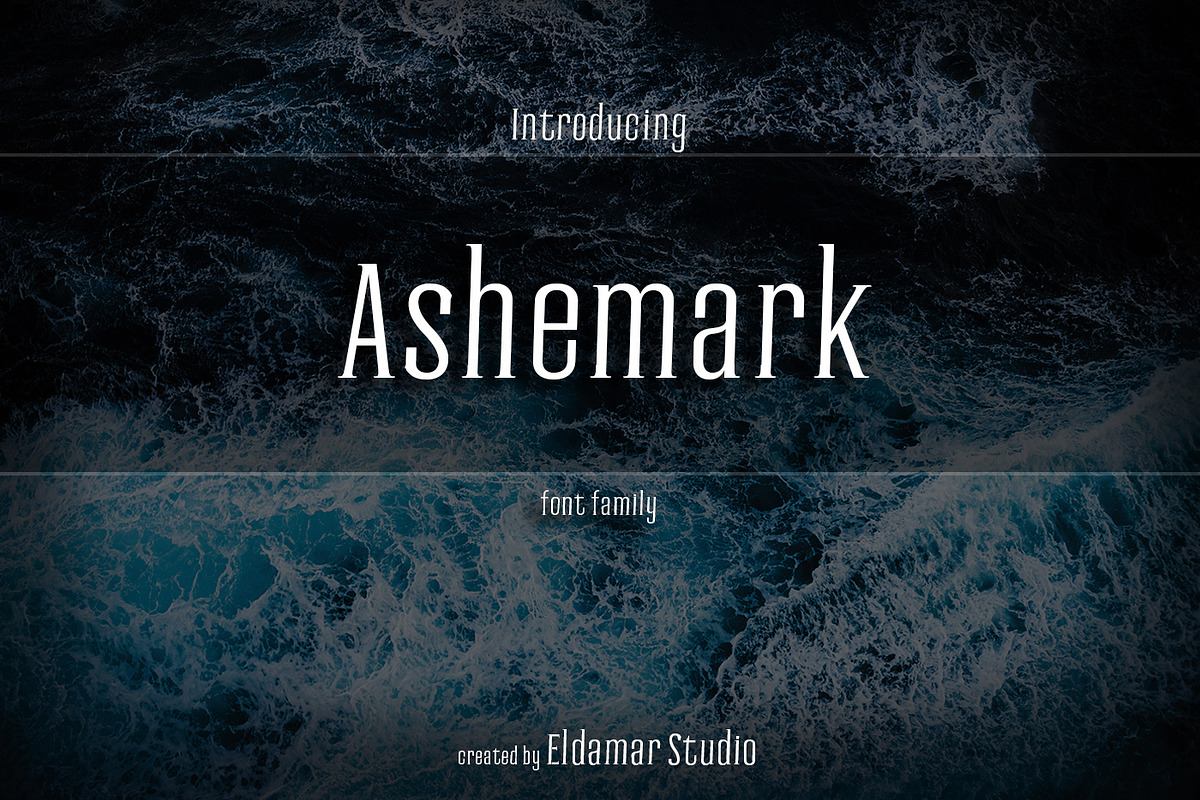
Ashemark Font Free Download is a refined serif typeface that blends timeless elegance with a modern edge. With its graceful curves, sharp serifs, and balanced proportions, Ashemark is ideal for luxury branding, editorial layouts, book covers, wedding invitations, and high-end product packaging.
This font exudes sophistication and strength, making it a perfect choice for designers seeking to create a classic yet contemporary feel. Its stylish letterforms ensure your typography stands out with class and clarity across both print and digital formats.